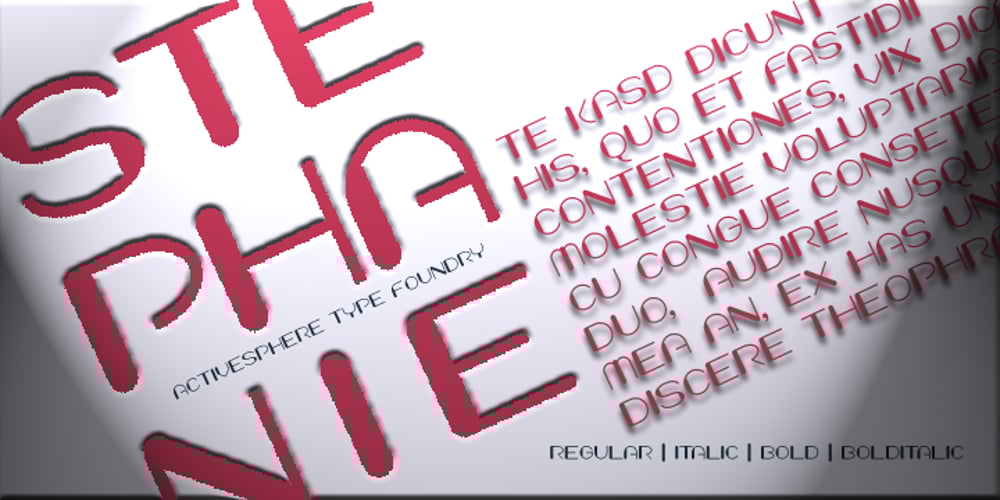
Stephanie Font Family was designed by Ronnie Dela Cruz and published by ActiveSphere. Stephanie contains 4 styles and family package options. Stephanie is a rounded geometric display font and works best in display applications, such as posters, headline, magazine, product branding, corporate branding, signage, logos and titles. Each style has a full upper and lower-case, accents, punctuation and a selection of monetary symbols.